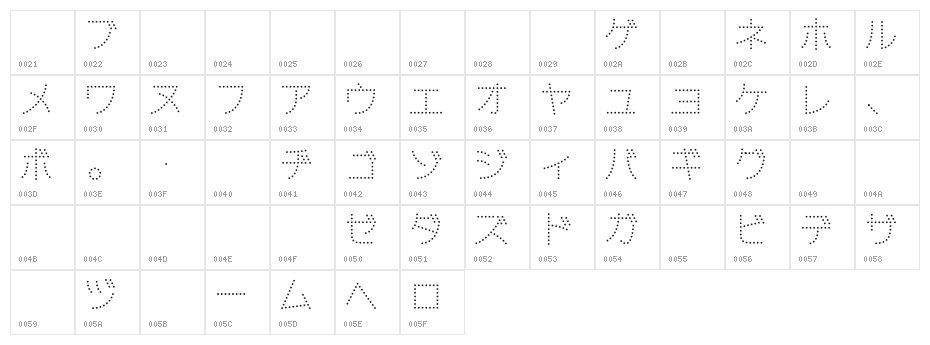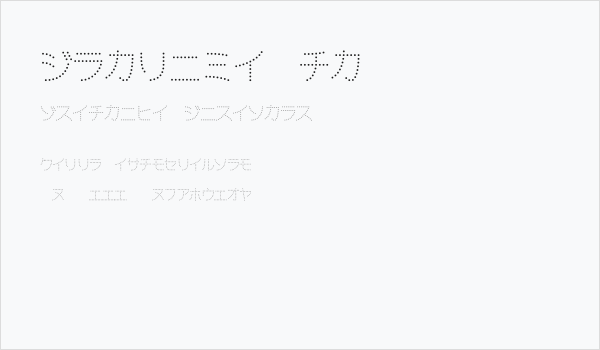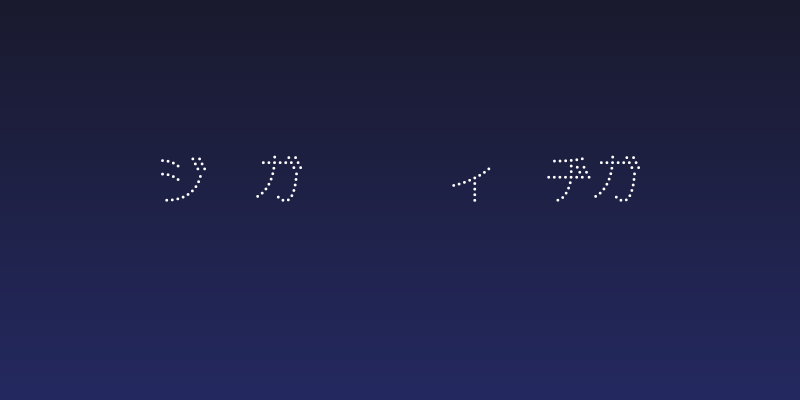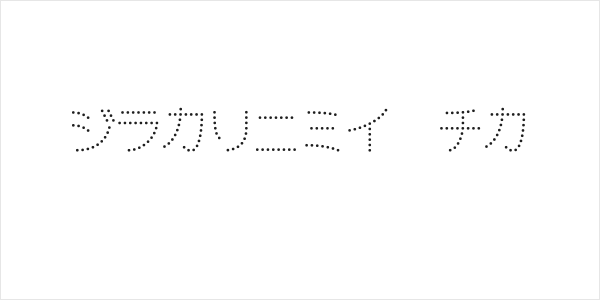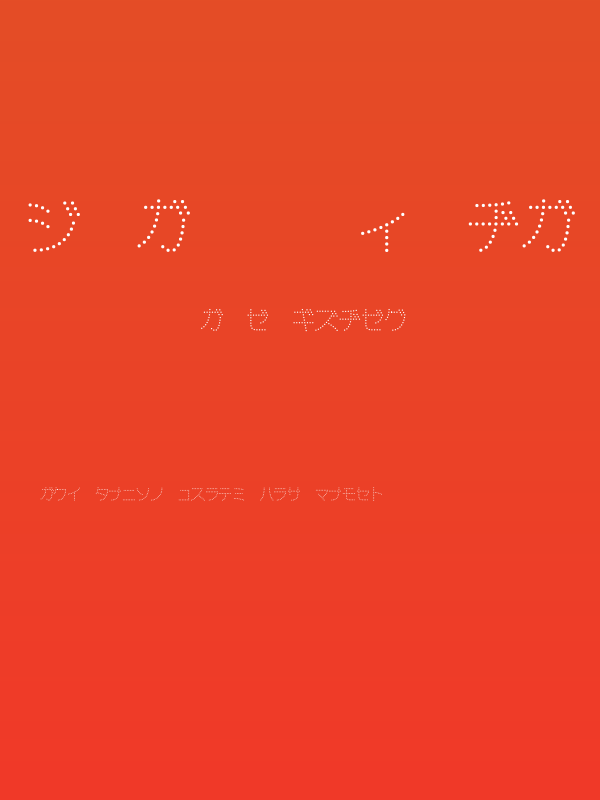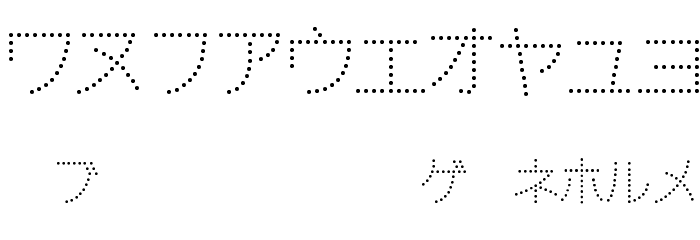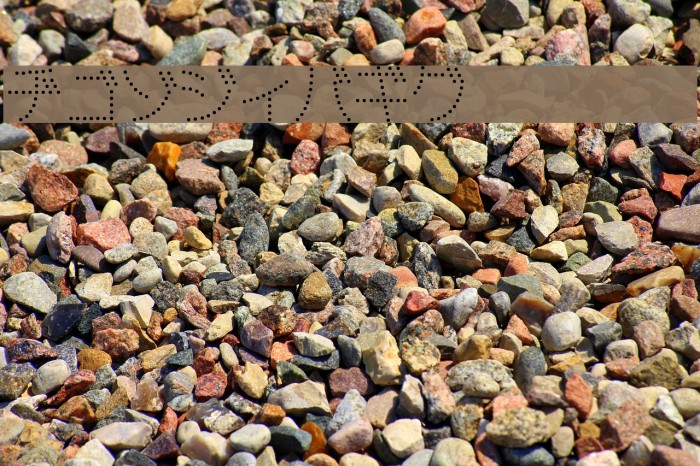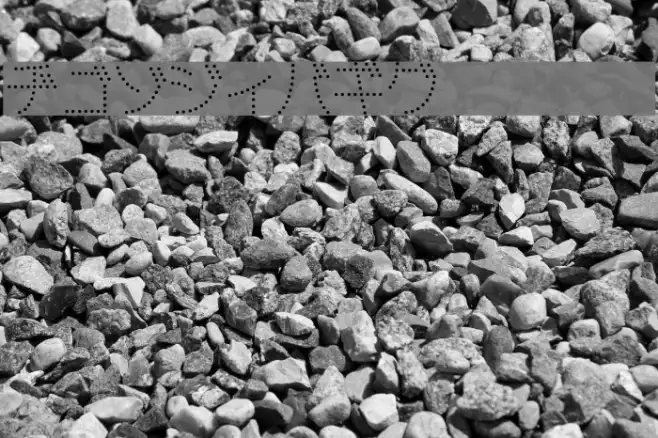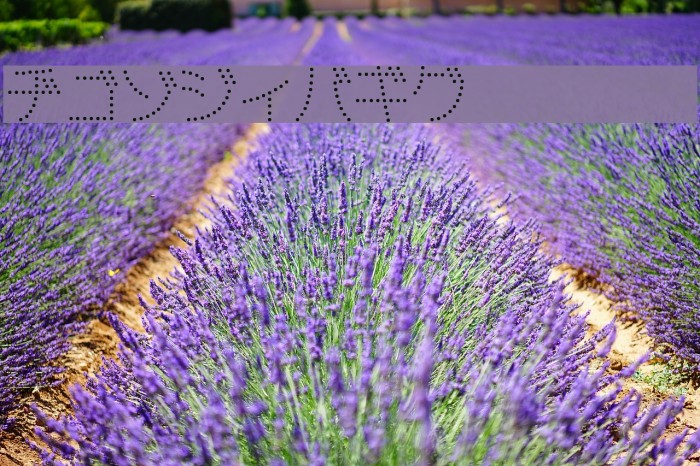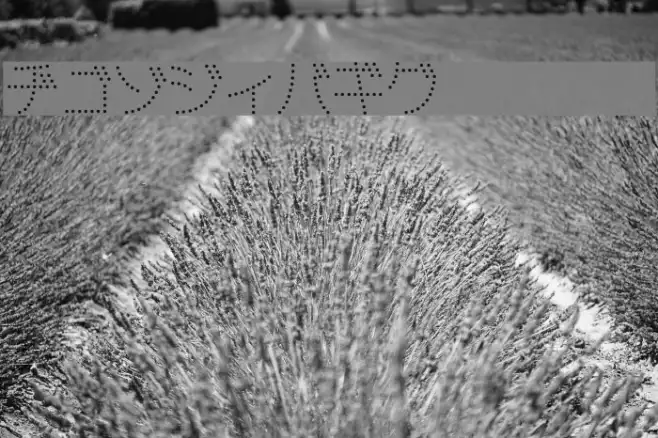
DotlineKat Font
DotlineKat Description
This font is characterized by its unique dotted style, where each character is formed using a series of small, evenly spaced dots. The design gives it a digital or pixelated appearance, reminiscent of early computer displays or dot matrix printers. The characters maintain a consistent size and shape, ensuring readability despite the unconventional style. This font stands out due to its playful and modern aesthetic, making it suitable for creative and informal applications. The dotted design adds a layer of texture and visual interest, making it ideal for projects that aim to capture attention and convey a sense of innovation.
| Proposed Projects | Ideal for digital art, tech-themed designs, creative posters, and modern branding projects. |